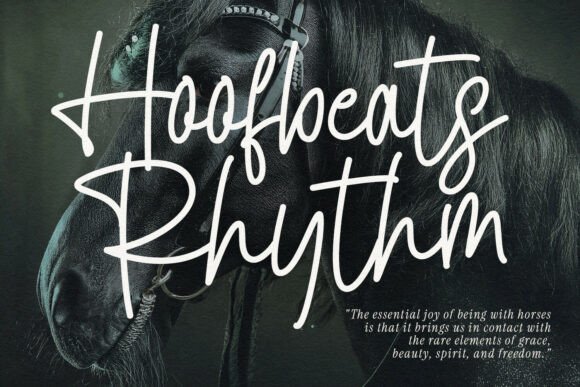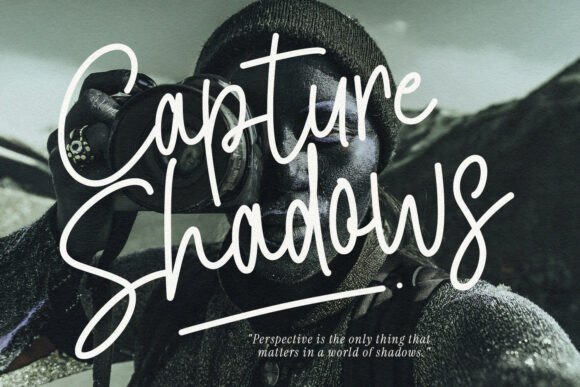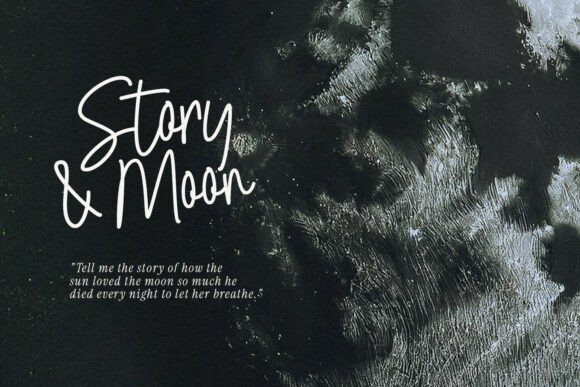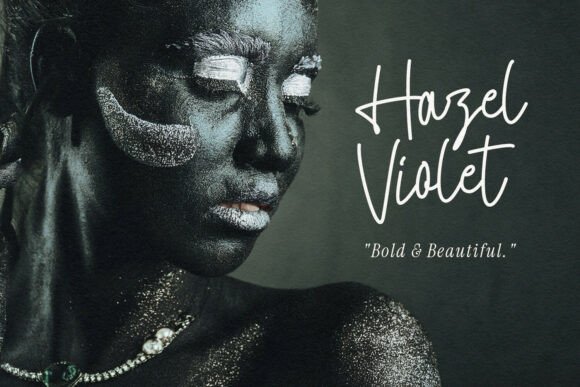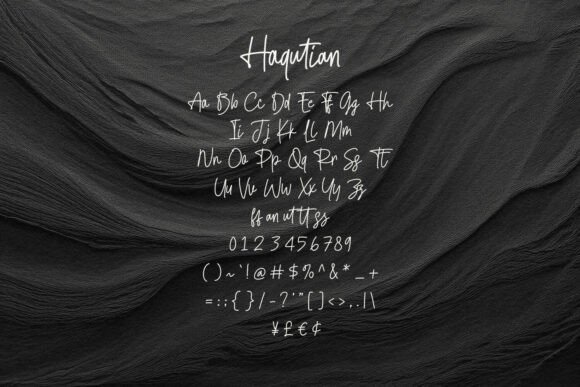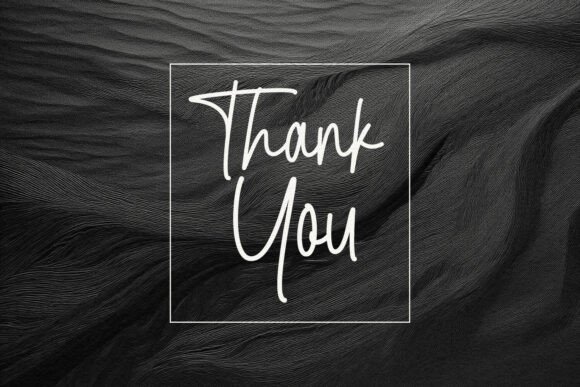
Introduction to Haqutian Font
Remember that moment when you stumbled upon the perfect font to elevate your creative project? It’s like finding a missing piece to a puzzle, and suddenly everything falls into place. For designers and creatives, discovering a high-quality font can be a game-changer. That’s exactly what the Haqutian Font offers – a stylish monoline casual signature script font designed to bring a touch of personal elegance to your work.
Whether you’re working on a branding project, creating a wedding invitation, or crafting a social media quote, Haqutian Font is an ideal choice. Its smooth, flowing lines and natural handwritten feel capture the essence of a modern signature, making it perfect for adding a sophisticated, personal touch to your design. With Haqutian Font, you can take your creative projects to the next level and make a lasting impression on your audience.
Key Features of Haqutian Font
- High-quality design resource ideal for creative projects requiring a unique aesthetic.
- Features a transparent background, allowing for seamless integration with custom backgrounds and designs.
- Designed with high resolution in mind, making it suitable for use in print and digital applications.
- Perfect for designers looking to add a touch of elegance and sophistication to their creative projects.
Honest Review: Haqutian Font
Here’s what I like about it: ✨
- Unique style: The font has a distinct, exotic look that’s perfect for creative projects.
- High-quality design: The font is well-designed and feels premium, making it a great addition to any design resource.
- Transparent background: The transparent background makes it easy to work with and allows for seamless integration with other design elements.
However, there are a few limitations: ⚠️
- Limited font styles: The Haqutian Font comes in a limited number of styles, which might not be ideal for complex designs.
- Not suitable for all projects: The font’s unique style might not be suitable for all types of projects, especially those that require a more conservative look.
Overall, I think the Haqutian Font is a great addition to any designer’s toolkit. It’s perfect for creative projects that require a unique, exotic look. However, its limitations should be considered before using it in a design project.
The Haqutian Font is ideal for:
- Creating eye-catching titles and headings.
- Designing logos and branding materials.
- Adding a touch of elegance to presentations and documents.